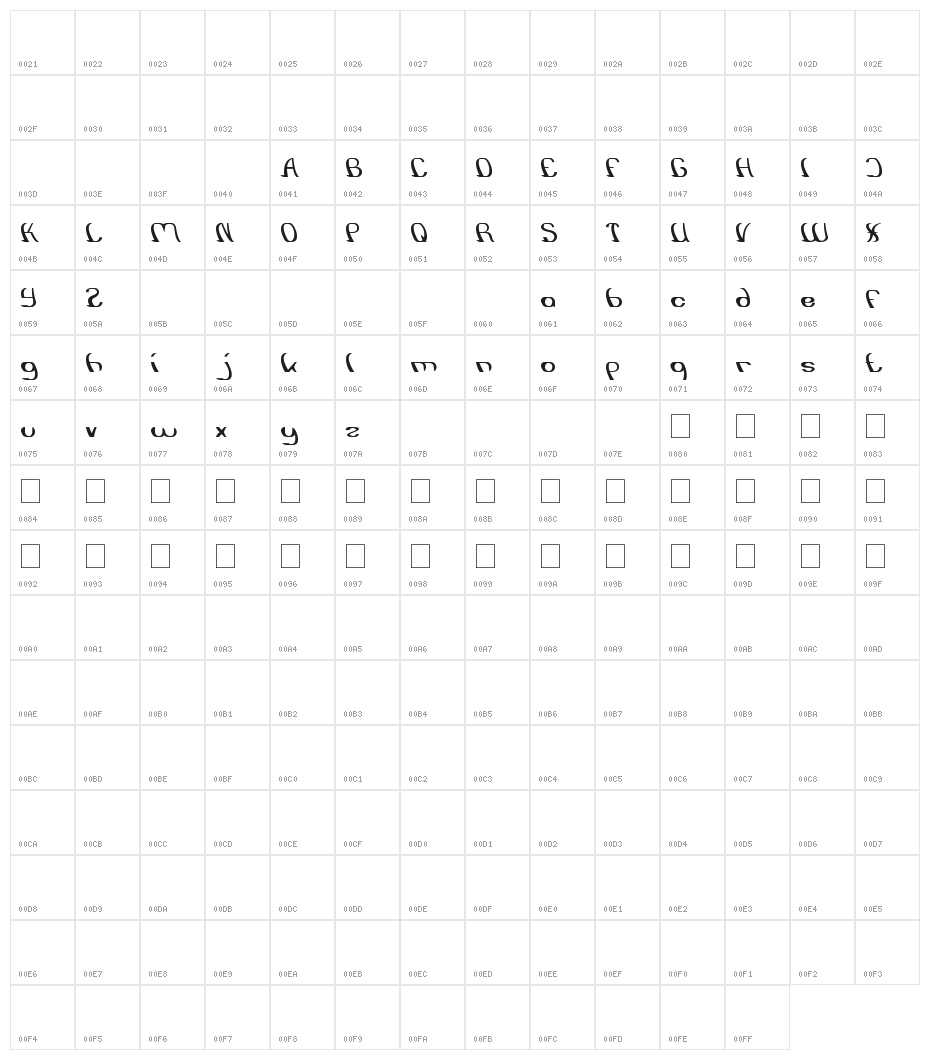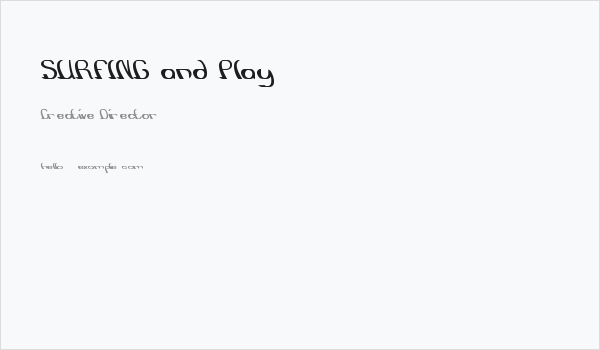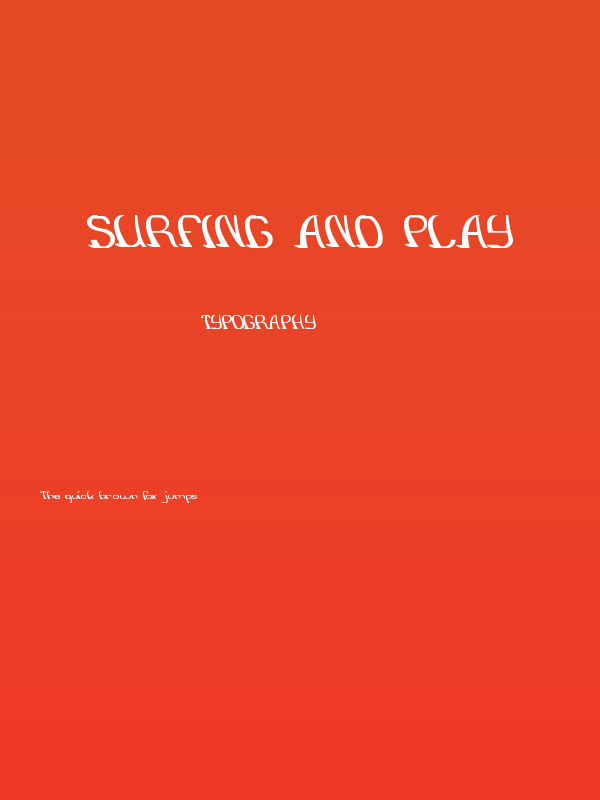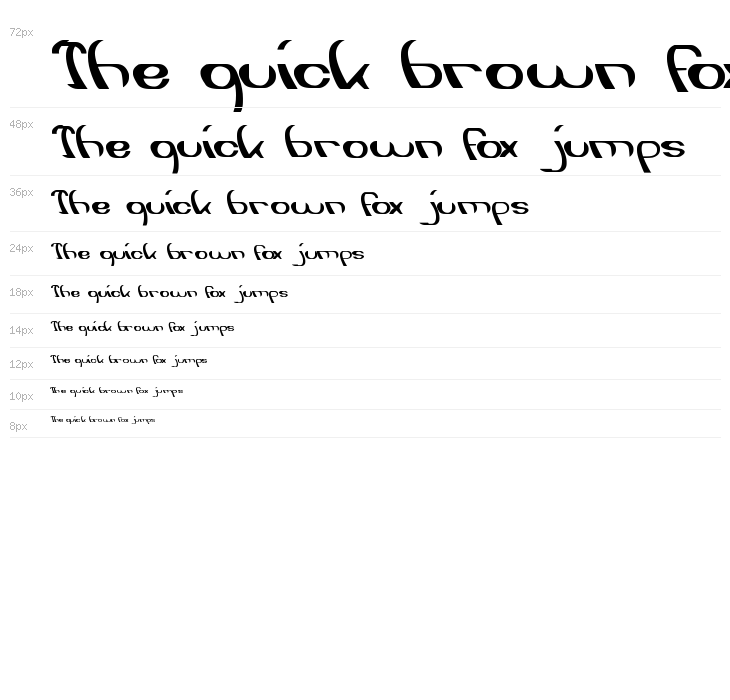
SURFING and Play Font
SURFING and Play Description
This font features a unique and playful design with a modern twist. The characters are crafted with a bold, artistic flair, incorporating sharp angles and smooth curves that create a dynamic and energetic appearance. The uppercase letters are particularly striking, with a sense of movement and flow that suggests a sense of adventure and excitement. The lowercase letters maintain this playful style, offering a cohesive look across the alphabet. The font's distinctiveness makes it ideal for creative projects that require a touch of personality and flair.
| Proposed Projects | Ideal for surf-themed branding, playful posters, and adventurous graphic designs. |